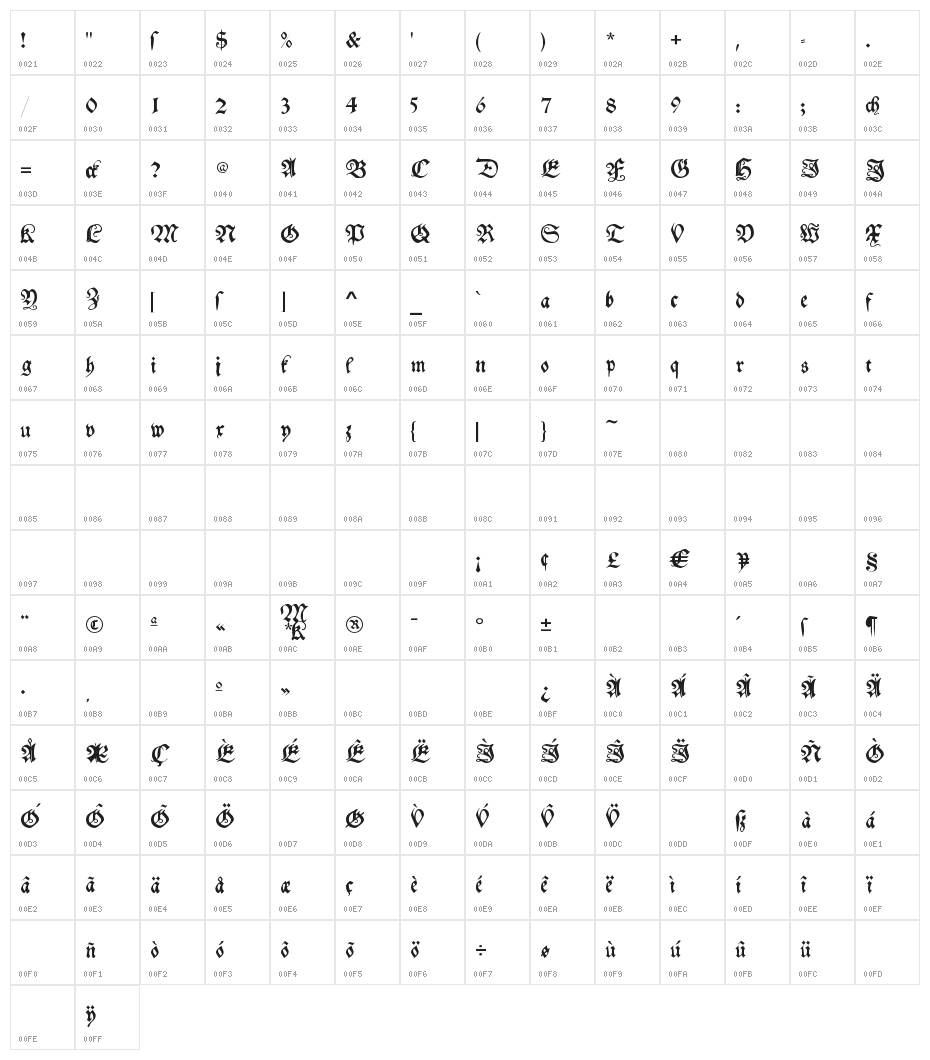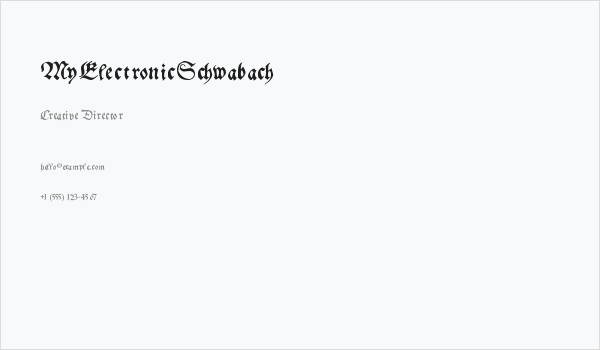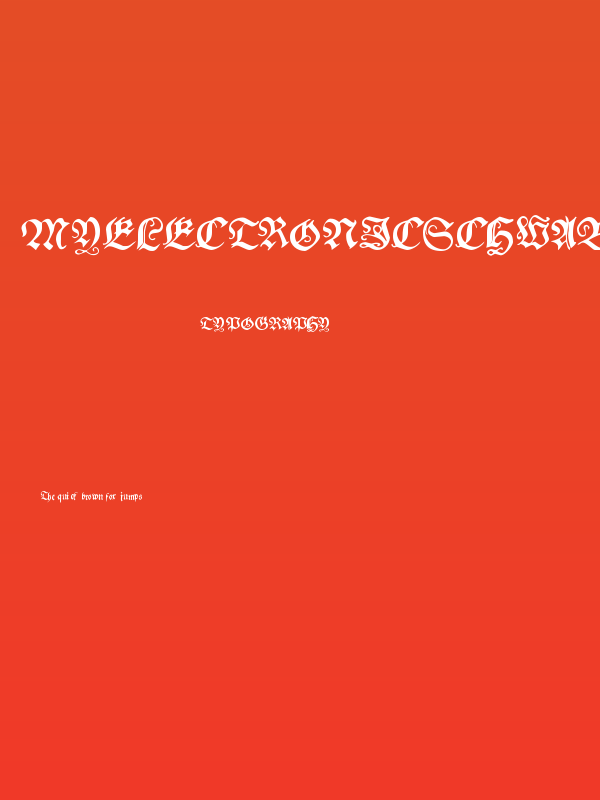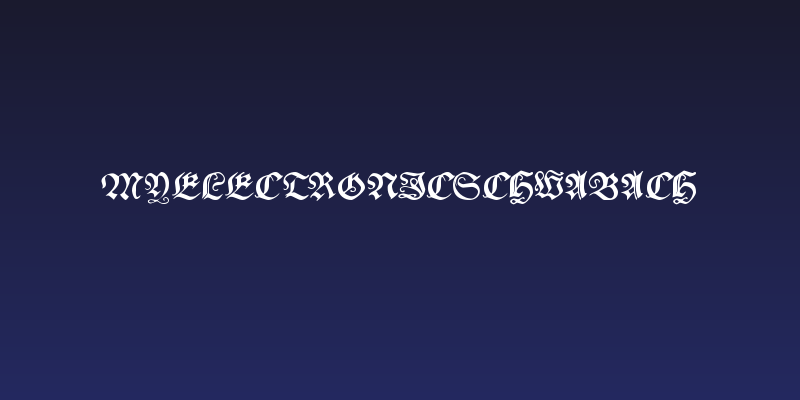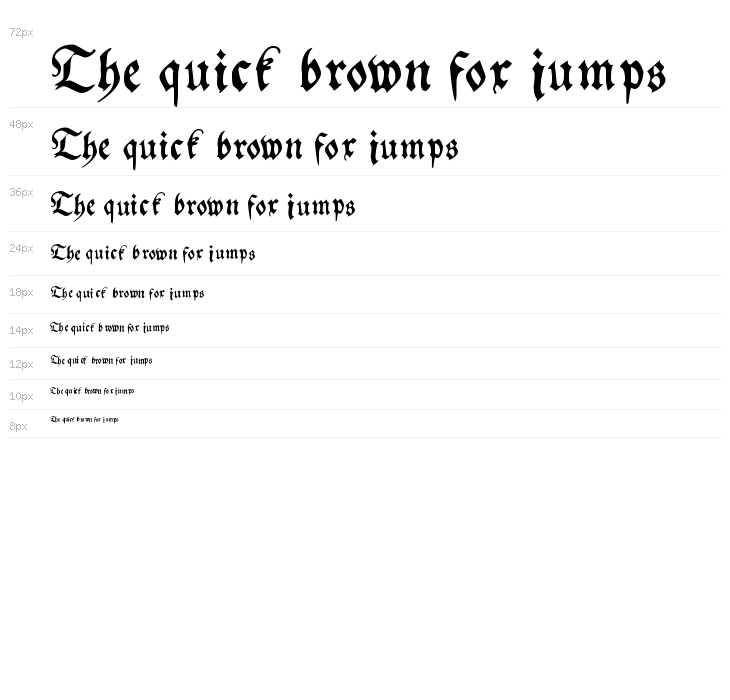
MyElectronicSchwabach Font
MyElectronicSchwabach Description
This font exhibits a classic blackletter style, characterized by its intricate and ornate letterforms. The uppercase letters are bold and dramatic, with sharp angles and elaborate flourishes that give a sense of historical elegance. The lowercase letters maintain the same decorative quality, with consistent stroke widths and pointed edges. Numbers are designed to match the overall aesthetic, featuring similar angular and embellished details. Special characters are equally ornate, integrating seamlessly with the alphabetic characters. The font's overall appearance is reminiscent of medieval manuscripts, making it ideal for projects that require a touch of historical or gothic flair.
| Proposed Projects | Suitable for historical documents, gothic-themed designs, book covers, and decorative invitations. |